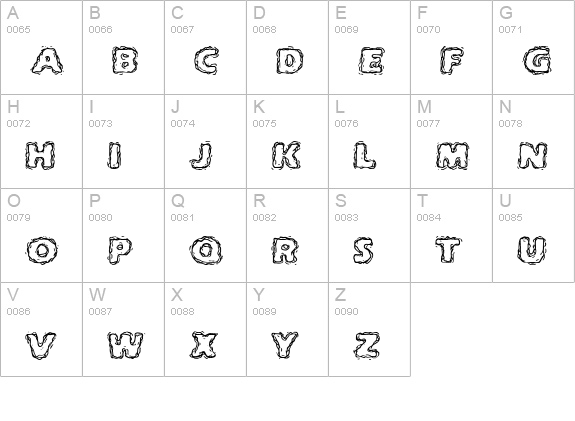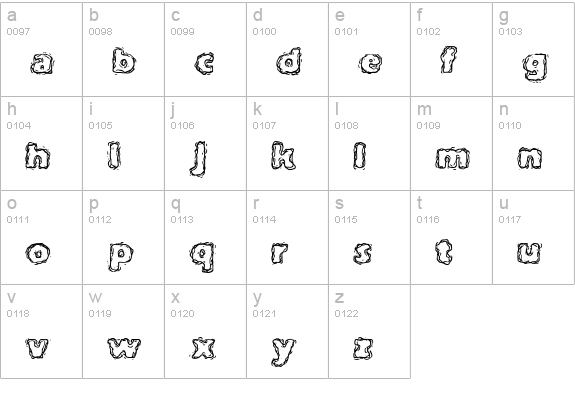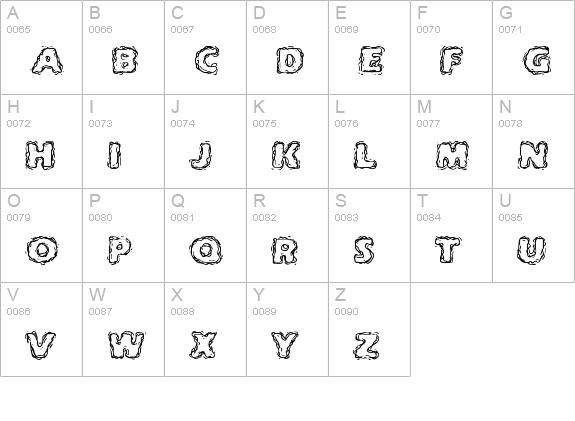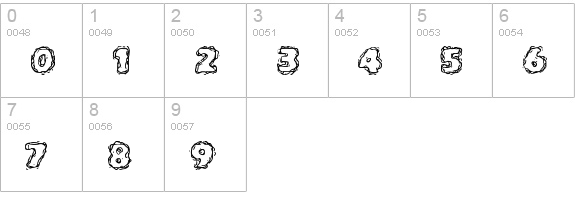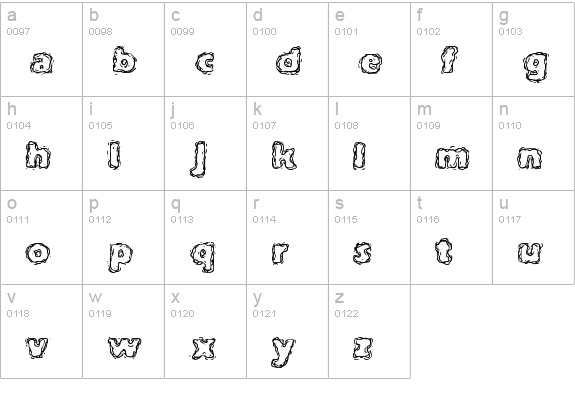
Jolt Of Caffeine BRK font is a dynamic and energetic typeface that is sure to give your designs a boost of creativity and excitement. With its bold and stylized letters, this font exudes a sense of urgency and passion. Whether you're working on a poster, flyer, or logo, Jolt Of Caffeine BRK font will make your text stand out and grab the viewer's attention. The best part? Jolt Of Caffeine BRK font is completely free to download at FontsMarket.com. That's right, you can add this eye-catching font to your collection without spending a dime. So go ahead and give your projects the jolt they need with Jolt Of Caffeine BRK font!